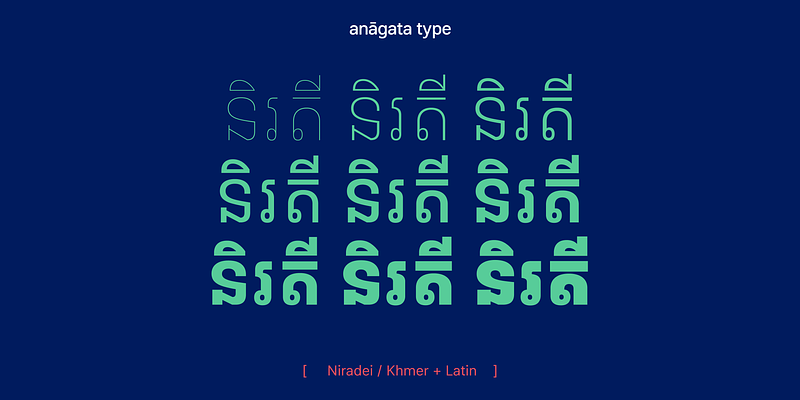
Niradei — Khmer Font
About Niradei
Niradei is a new modern Khmer font family that aims to give a sense of fresh, clean, and legible within branding and screen environments. The straightforward and proportional letterforms of Niradei help the matching between Khmer and Latin or other scripts better and easier in the modern type design landscape. Niradei comes with both Khmer and Latin in 9 weights in Upright and is soon available in Italic.
- Tep Sovichet, Hak Longdey
- Khmer, Latin
- 9 styles in family